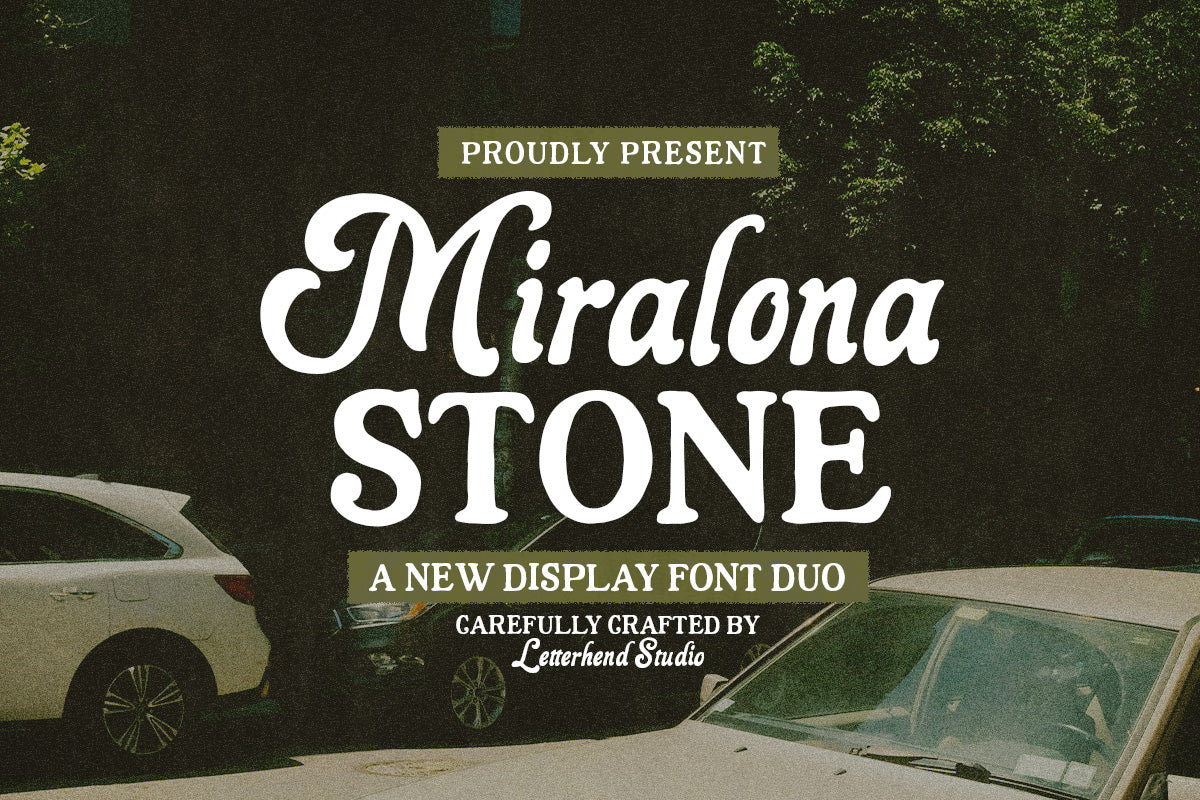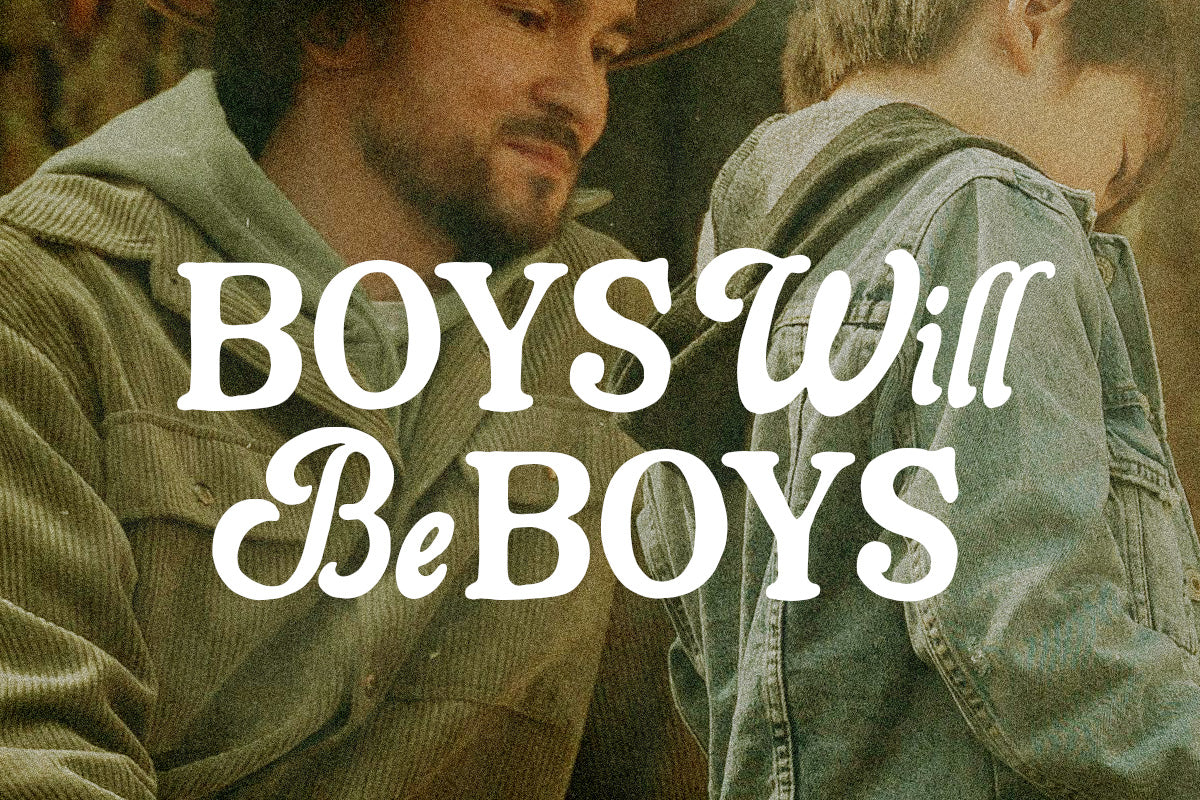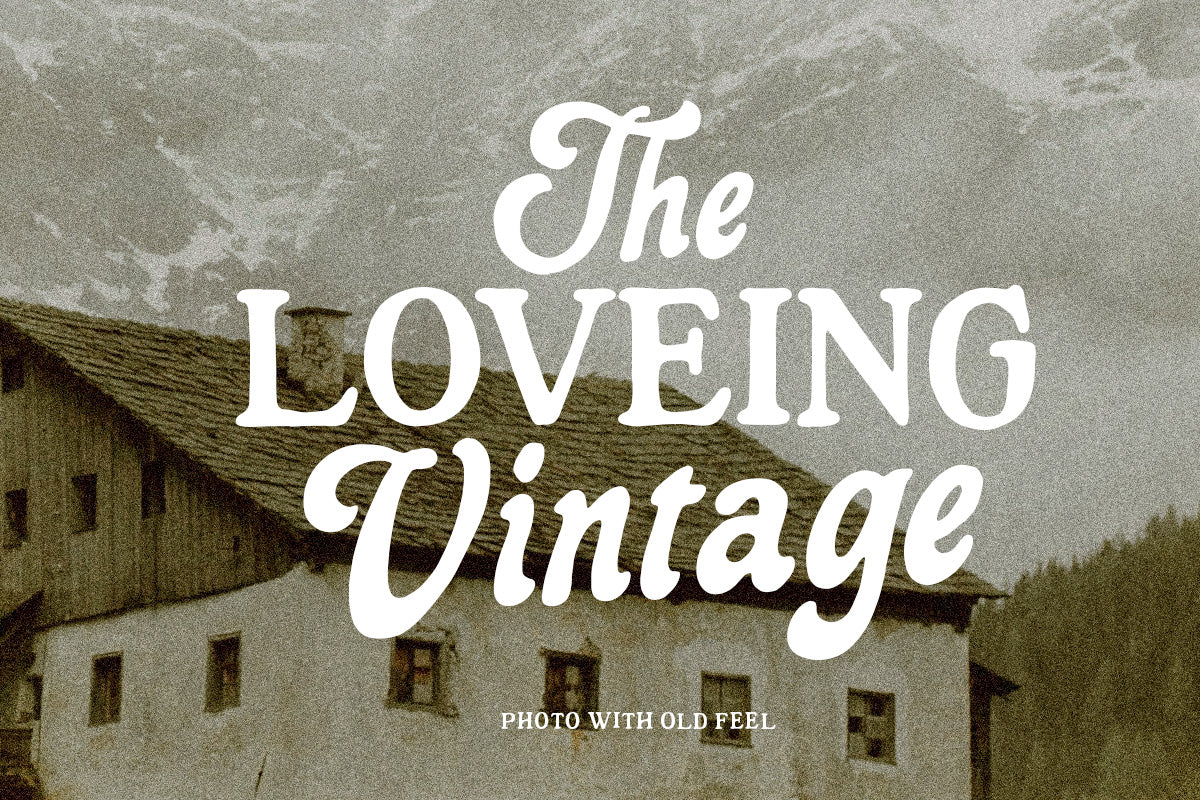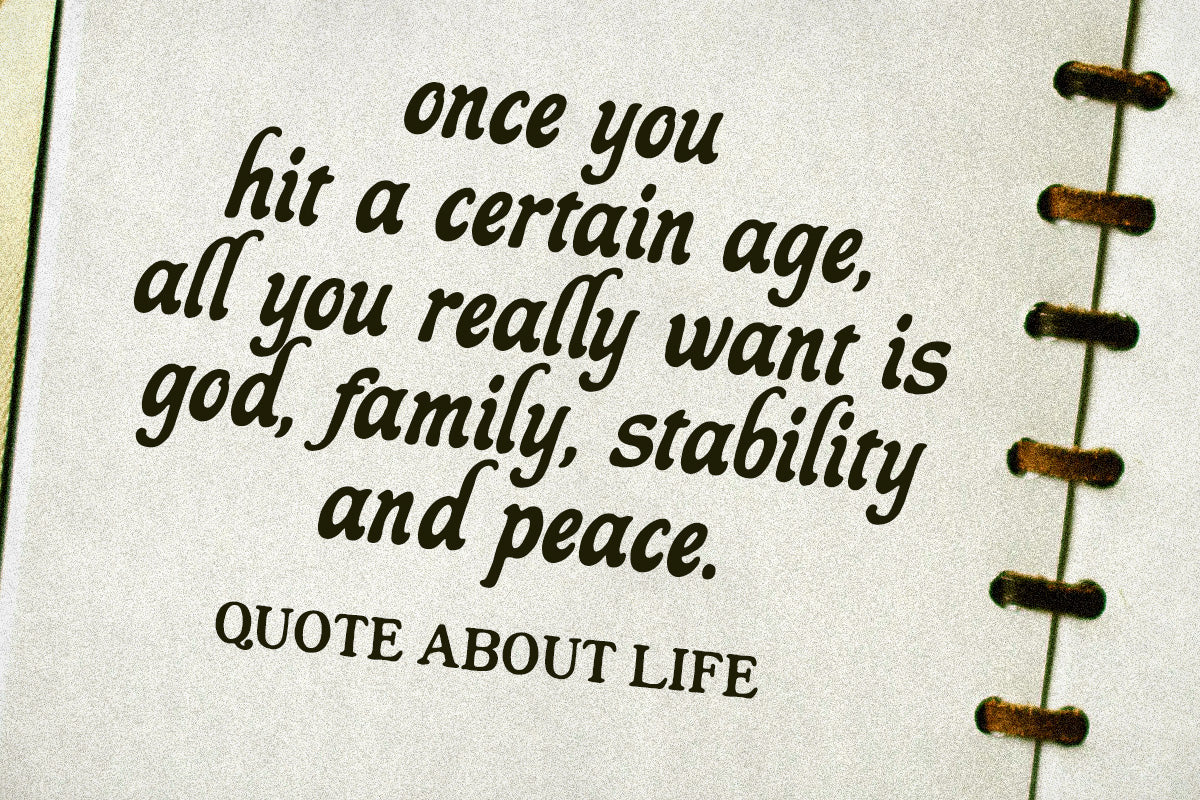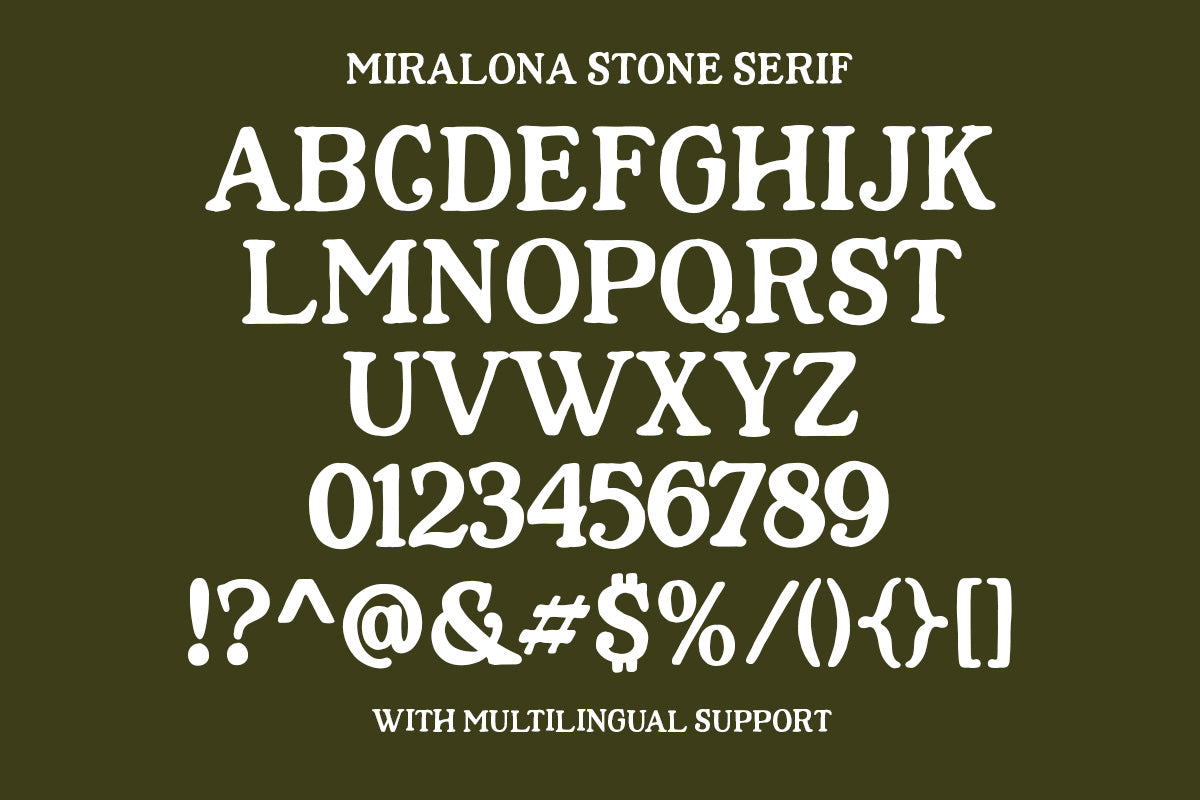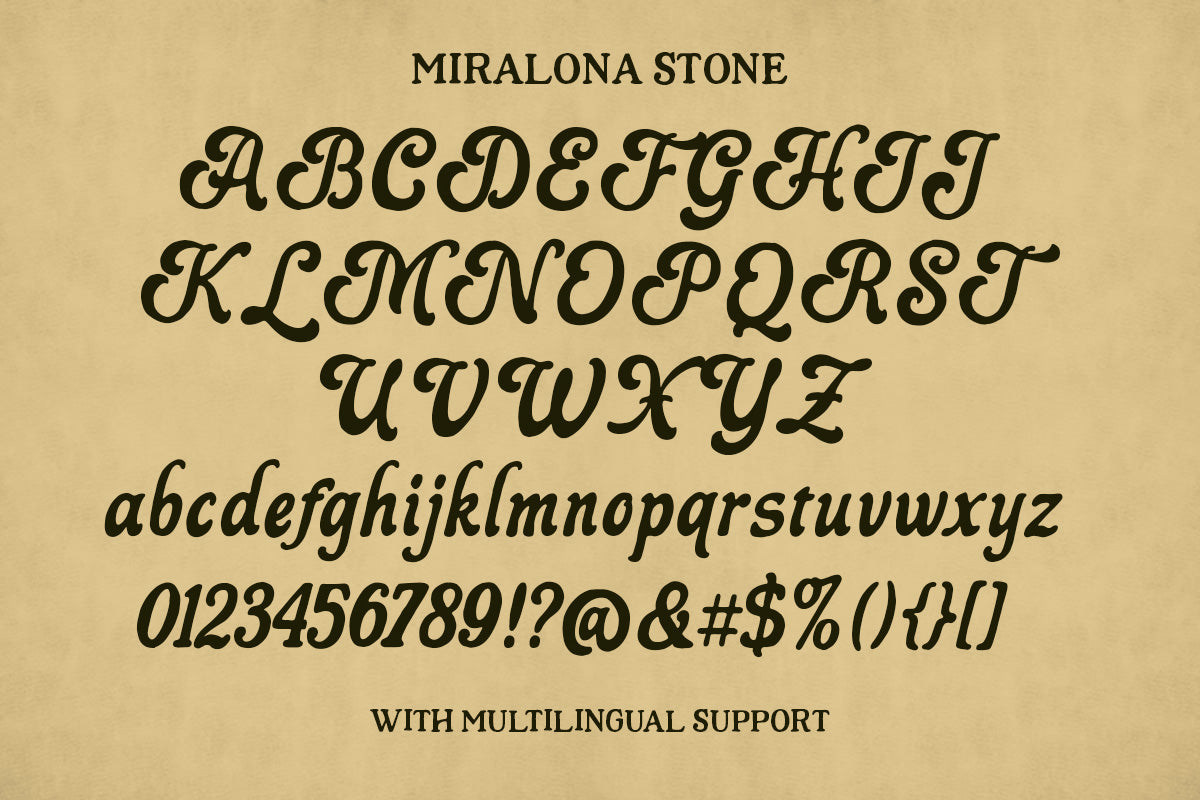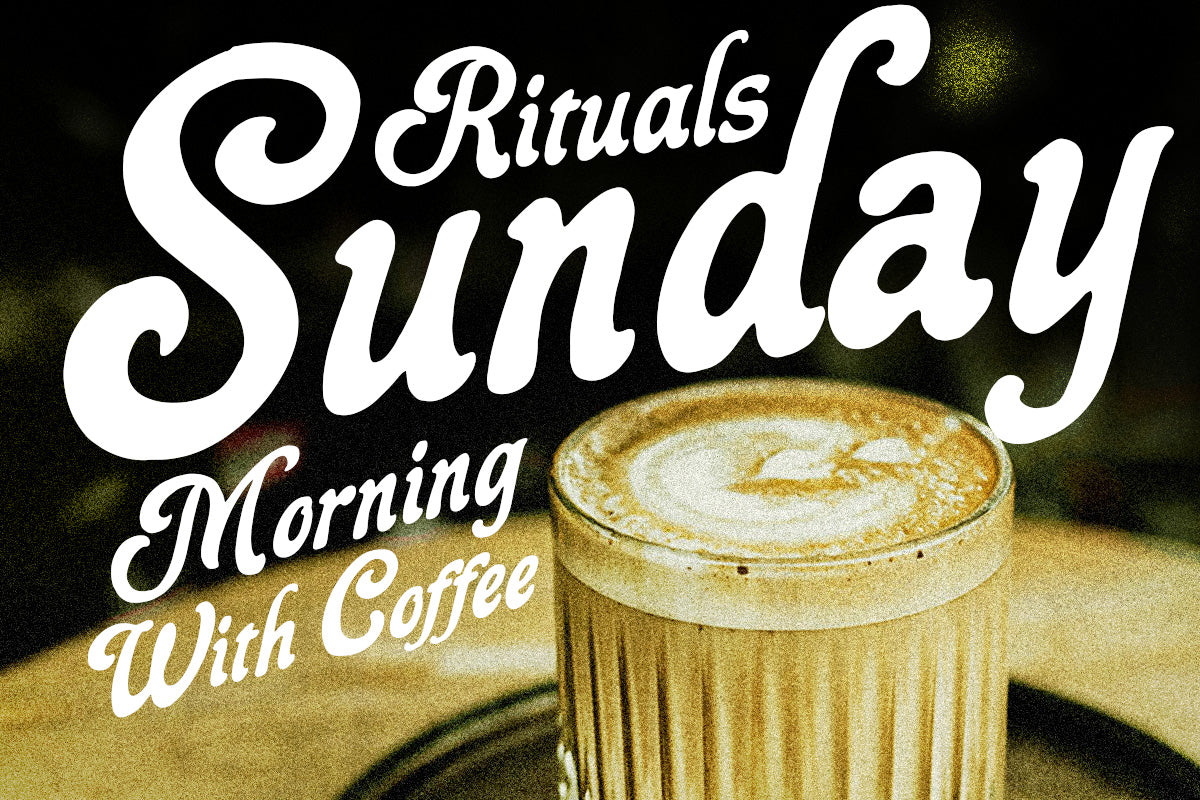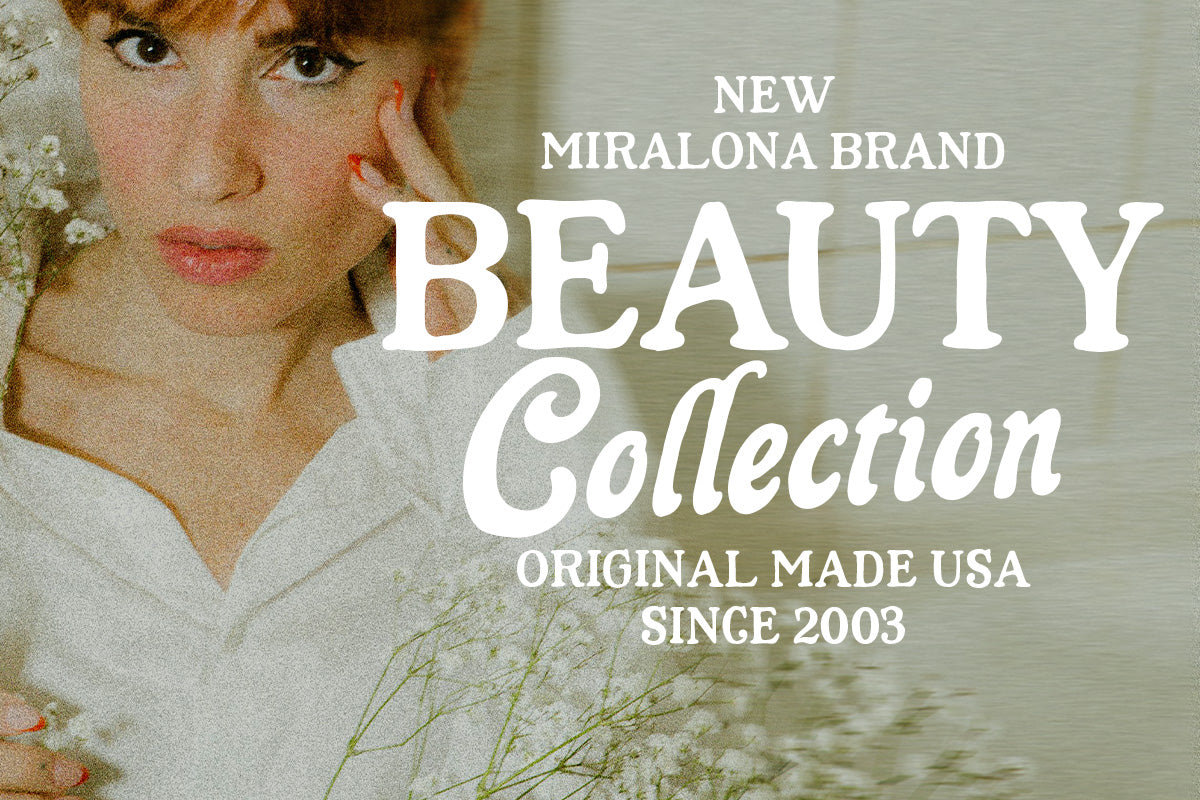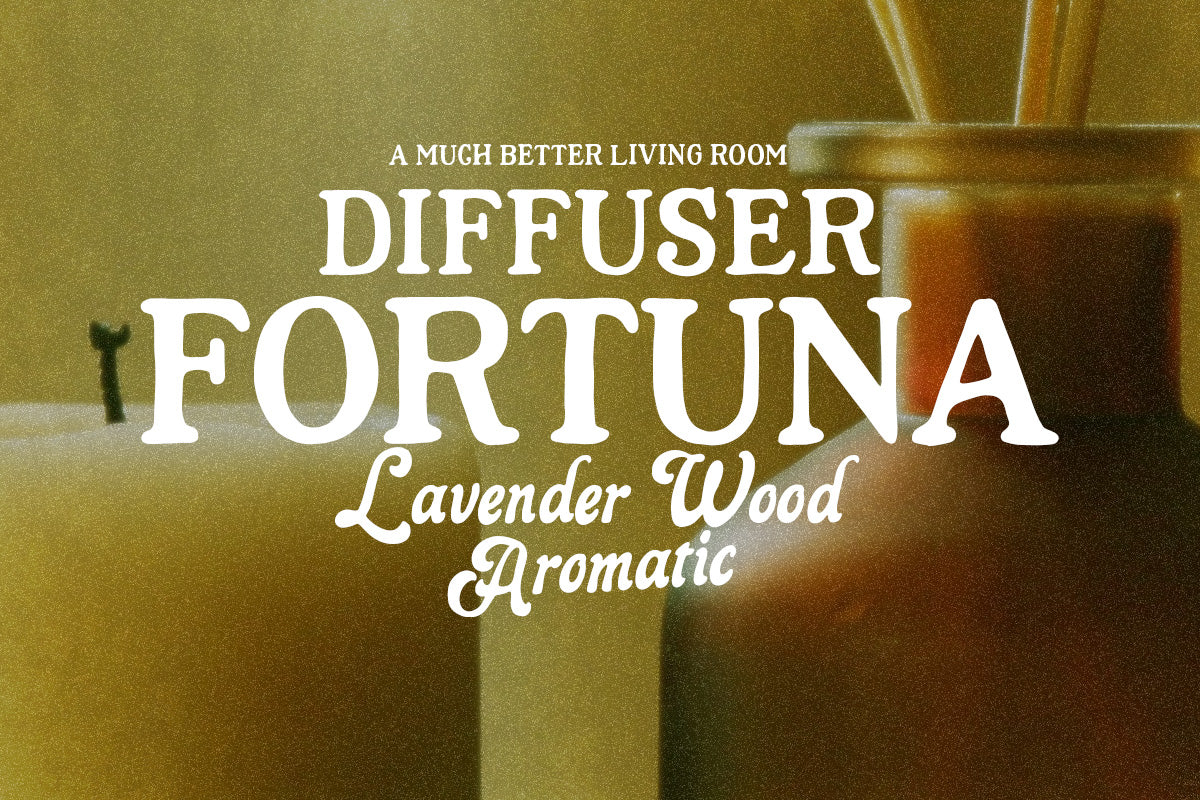
Miralona Stone is a bold and expressive display font duo that blends vintage elegance with modern strength. Featuring a combination of a script and a serif typeface, this pair offers great versatility for various design needs. The script style is ornate and flowing, giving a touch of handcrafted charm, while the serif is sturdy and bold—perfect for high-impact headlines, logos, packaging, and editorial layouts. Together, they create a stylish contrast that works beautifully for branding projects, retro-inspired visuals, or any design requiring a timeless, confident look.
Features:
Uppercase & lowercase
Numbers and punctuation
Alternates & Ligatures
Multilingual Support